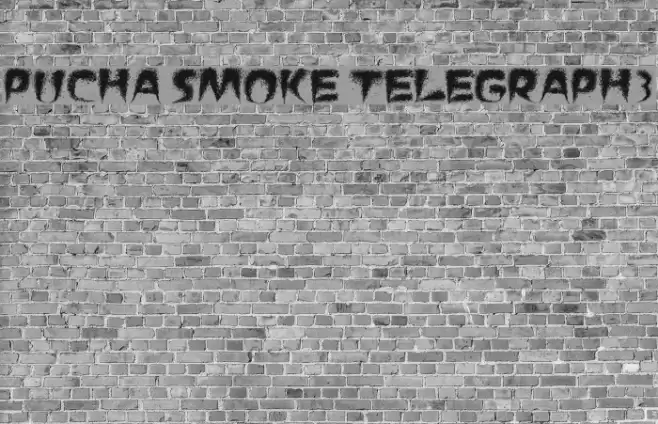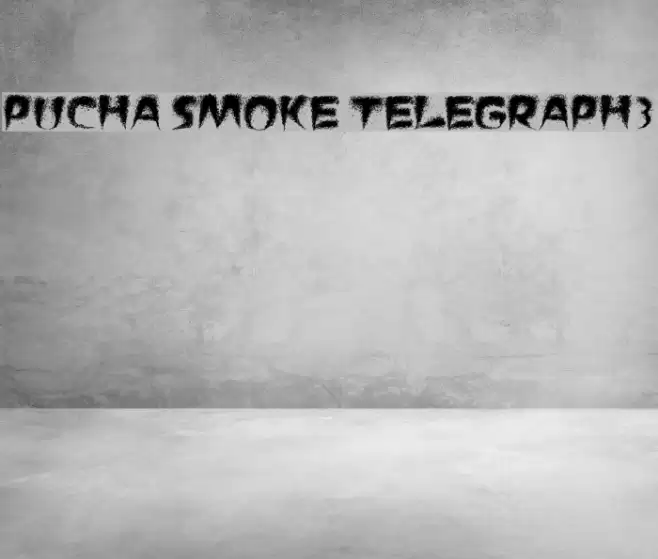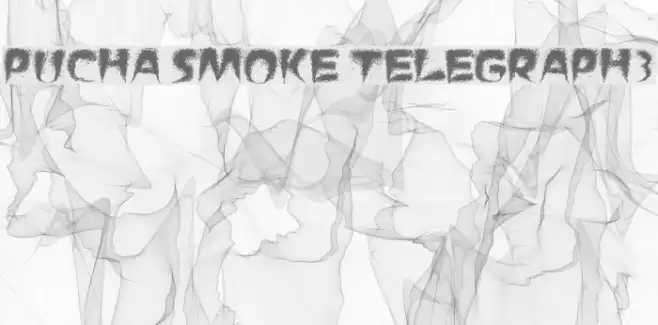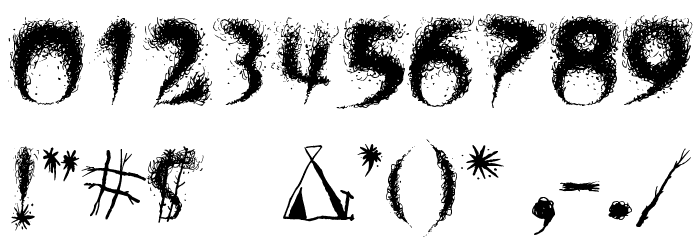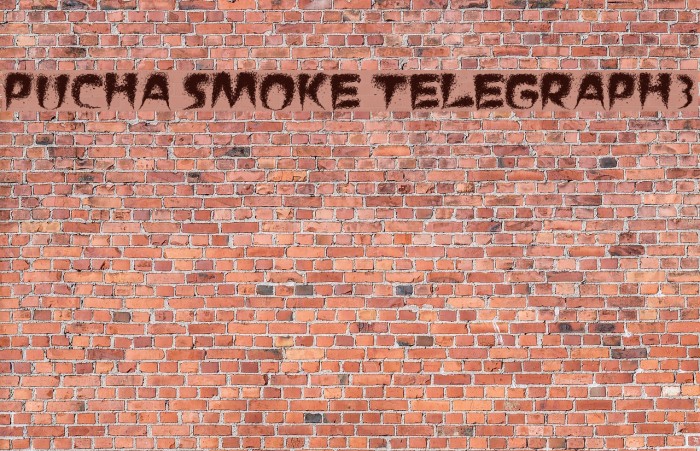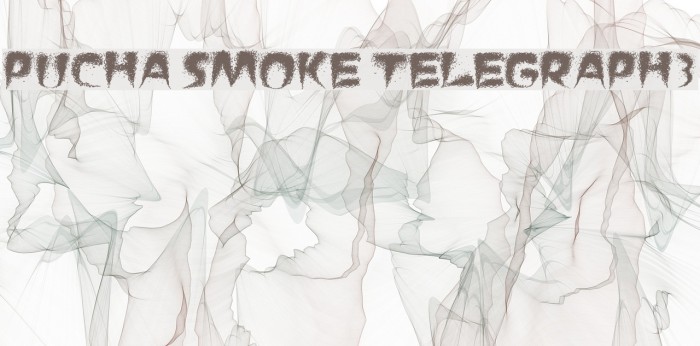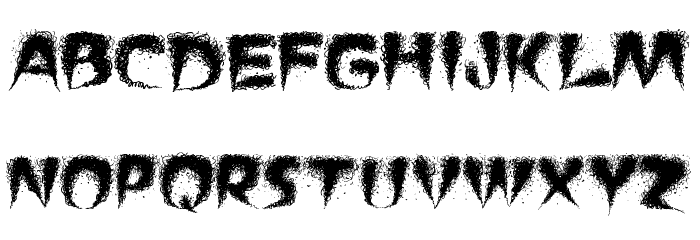
Pucha Smoke Telegraph3 Font
Pucha Smoke Telegraph3 Description
This font features a unique, distressed appearance reminiscent of smoke or ink blots, giving it a textured and organic feel. The characters are bold and have an uneven, rough edge that suggests movement and energy. The uppercase and lowercase letters maintain a consistent style, with each character appearing as if it is dissipating into the air. Numbers and special characters follow the same aesthetic, adding to the overall cohesion of the font. This style is particularly eye-catching and can evoke a sense of mystery or drama.
A bold, textured font with a smoky, distressed appearance from Cartoon fonts.
- Proposed Projects: Ideal for projects requiring a dramatic or mysterious touch, such as horror movie posters, album covers, or themed event invitations.
- Use Case: Headlines, Posters, Logos